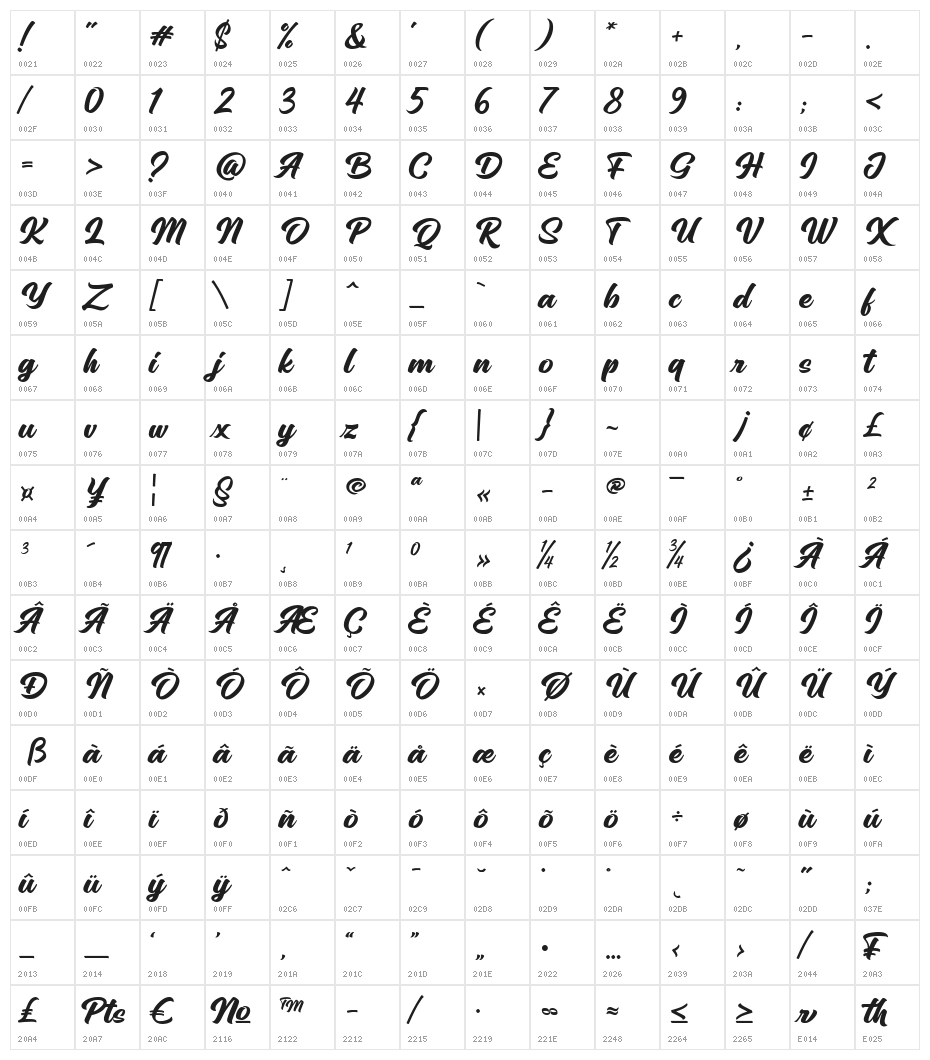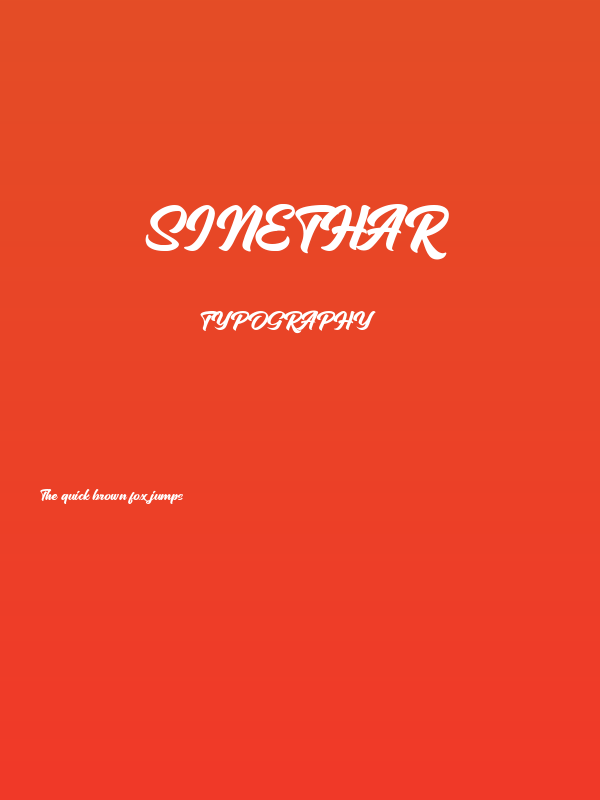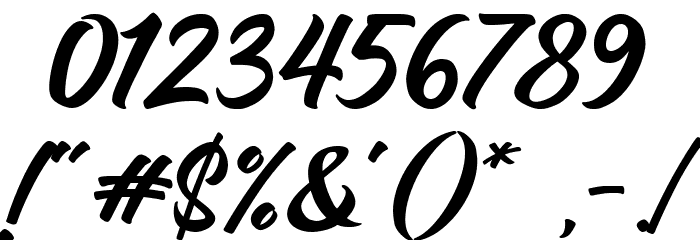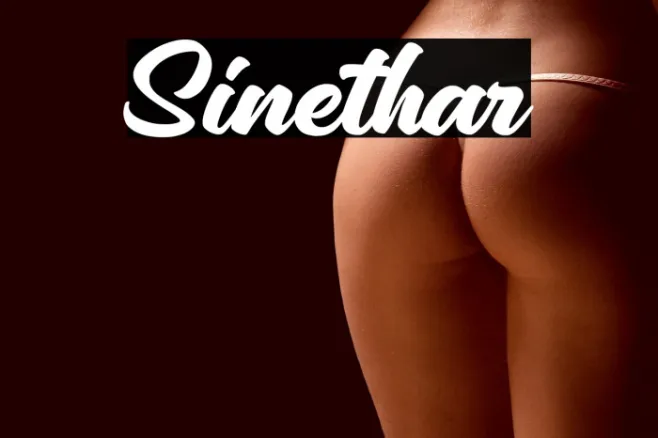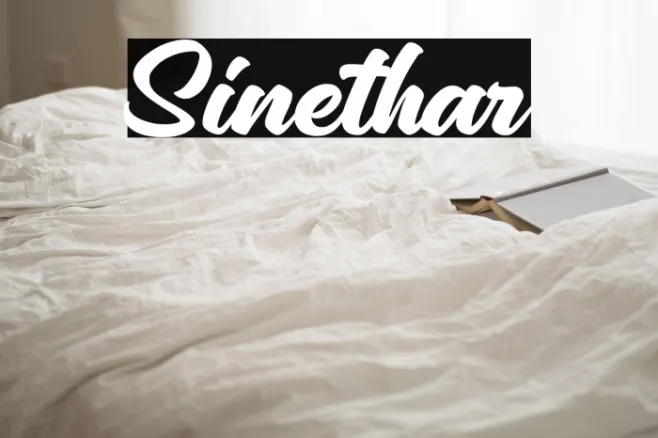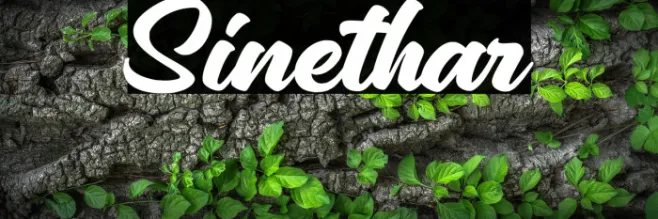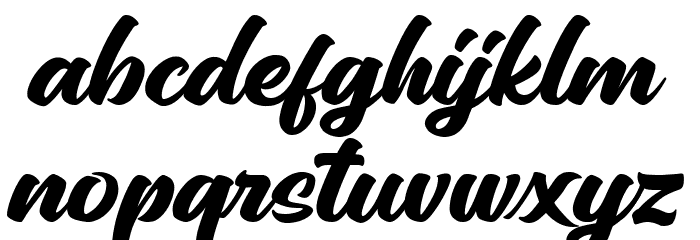
Sinethar Font
Sinethar Description
This font exhibits a bold and flowing script style, characterized by its elegant and smooth curves. The uppercase letters are slightly more ornate, with sweeping lines that give a sense of movement and grace. The lowercase letters maintain a consistent flow, enhancing readability while retaining a stylish flair. Numbers and special characters are designed to match the overall aesthetic, ensuring a cohesive look across all text. The font's bold weight and high contrast between thick and thin strokes make it particularly striking, suitable for making a strong visual impact.
| Proposed Projects | Ideal for wedding invitations, branding, logo design, and elegant signage. |